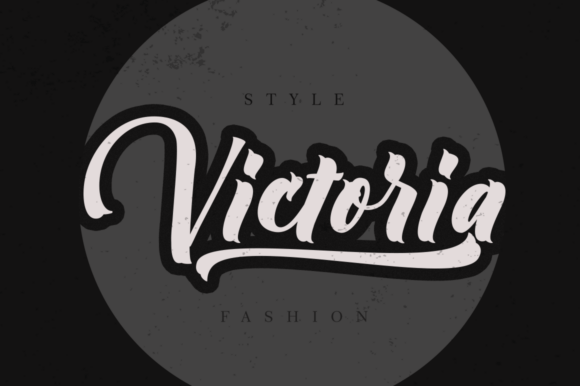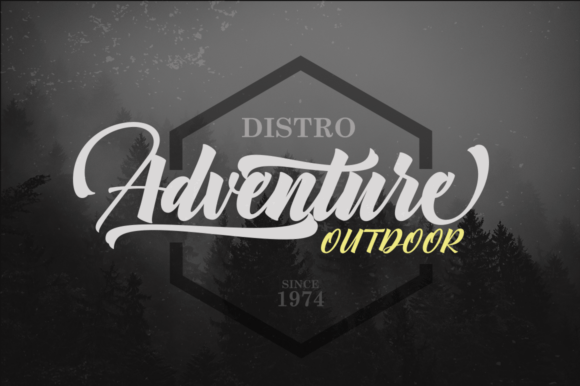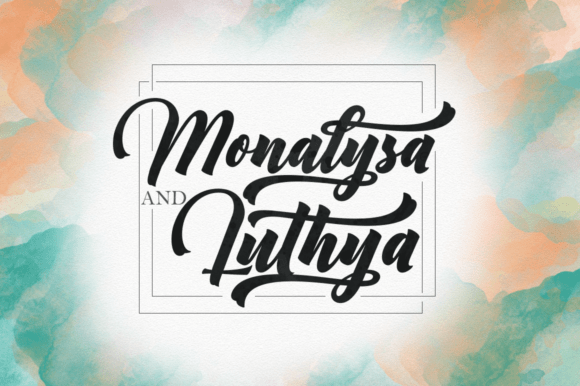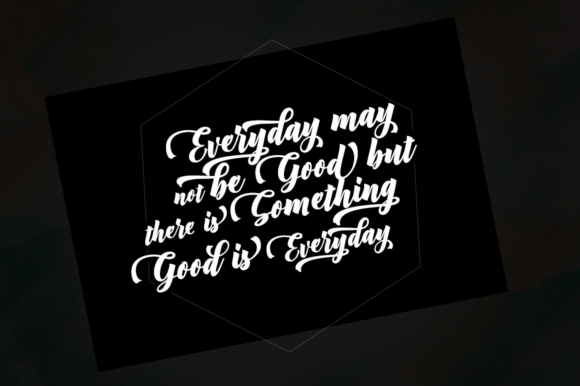
Discover the Unique Charm of Amster Font: A Modern Calligraphy Typeface
Are you a designer or crafter looking for a font that can add a touch of elegance and sophistication to your projects? Look no further than the Amster Font. This beautiful and unique font is a modern calligraphy typeface that combines the fluidity of brush script with the boldness of a statement font. In this article, we’ll explore the features and benefits of Amster Font, and how it can elevate your designs to the next level.
The Features of Amster Font
Amster Font is a versatile and feature-rich font that offers a range of options for designers. Some of its key features include:
- Contextual Alternates: This feature allows you to create a more natural and fluid look by automatically substituting glyphs based on the context in which they are used.
- Standard Ligatures: Amster Font includes standard ligatures that help to create a more cohesive and harmonious look.
- Stylistic Alternates: With stylistic alternates, you can create a range of different looks and styles, from elegant and refined to bold and playful.
- Stylistic Sets: Amster Font also includes stylistic sets that allow you to easily create a consistent look across your design.
Basically, all European languages that are based on the Latin alphabet are supported, making Amster Font a versatile and practical choice for designers.
Use Amster Font for a Variety of Projects
Amster Font is perfect for a range of design projects, including:
- Headings: Add a touch of elegance to your headings and titles with Amster Font.
- Logos: Create a unique and memorable logo with Amster Font.
- Wedding Invitations: Add a touch of romance and sophistication to your wedding invitations with Amster Font.
- T-Shirts: Create eye-catching and stylish t-shirts with Amster Font.
- Letterheads: Elevate your letterheads and business correspondence with Amster Font.
- Labels: Create stylish and professional labels with Amster Font.
- News: Use Amster Font to add a touch of elegance to your news headlines and articles.
- Posters: Create eye-catching and stylish posters with Amster Font.
- Badges: Design stylish and professional badges with Amster Font.
In conclusion, Amster Font is a unique and versatile font that offers a range of features and benefits for designers and crafters. Its modern calligraphy style, combined with its bold and elegant look, make it perfect for a variety of design projects. With its wide range of language support and compatibility with OpenType features, Amster Font is a practical and stylish choice for anyone looking to elevate their designs.